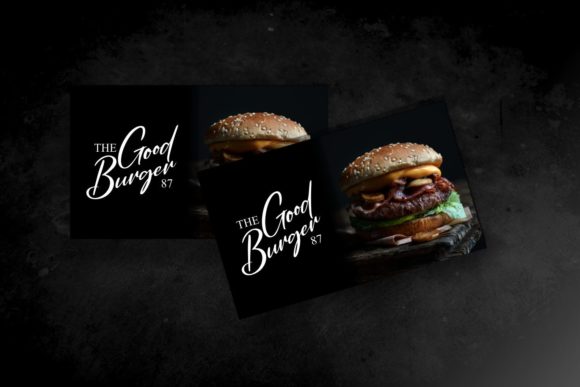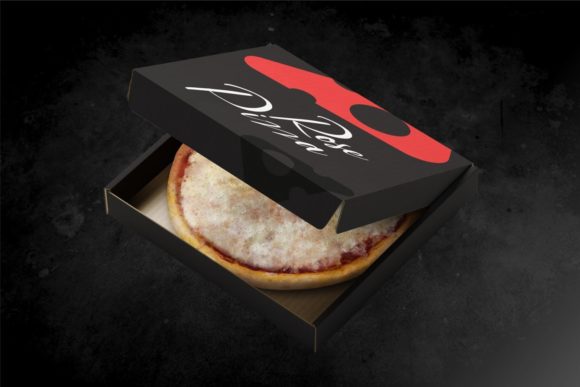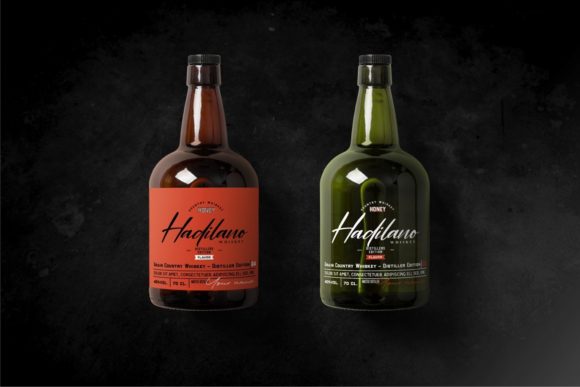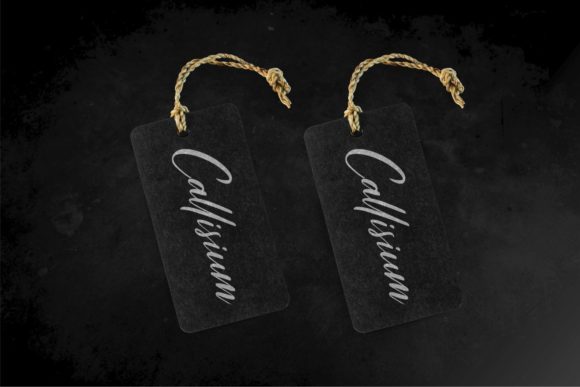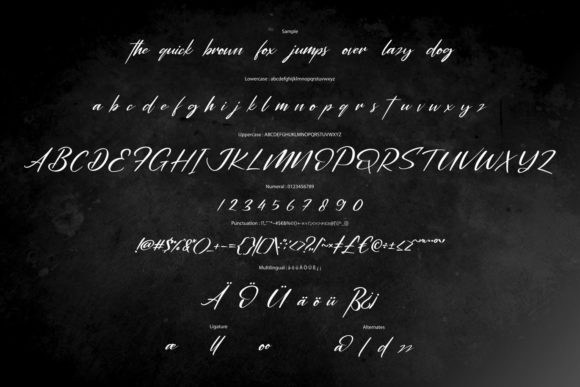
Discover the Whimsical Charm of Alexandera Font
There’s nothing quite like the thrill of seeing a design idea come to life. The moment when your concept transforms into a visually stunning reality, filling you with a sense of pride and accomplishment. For many designers, this feeling is the driving force behind their creativity. But what sets a design apart from the rest? Is it the colors, the layout, or perhaps the typography?
Enter Alexandera Font, a sweet and cursive handwritten font that adds a touch of whimsy and romance to any design project. This beautiful font is designed to bring joy and elegance to your work, making it perfect for a variety of creative endeavors. Whether you’re working on a wedding invitation, a children’s book, or a branding project, Alexandera Font is sure to leave a lasting impression.
As a designer, you understand the importance of choosing the right font to convey your message. Alexandera Font is a valuable addition to your toolkit, offering a unique and charming aesthetic that will elevate your designs and set them apart from the crowd.
Alexandria Font Key Features
- Unique Characteristics: Alexandria Font features a unique blend of traditional and modern elements, with intricate details and subtle flourishes that give it a distinctive look.
Alexandera Font Review
I recently had the chance to work with the Alexandera Font, and I must say it’s a mixed bag. On the one hand, here’s what works well:
- ✨ Beautiful, elegant script that’s perfect for adding a touch of sophistication to designs.
- ✨ Excellent legibility, even at smaller font sizes.
- ✨ Plenty of customization options, including multiple weights and styles.
- ⚠️ Limited language support, which may be a problem for designers working on multilingual projects.
- ⚠️ Not ideal for use in small font sizes, as the script can become difficult to read.
- ⚠️ Some users have reported issues with font rendering, particularly on lower-end devices.
Overall, I’d say the Alexandera Font is a solid choice for designers looking to add a touch of elegance to their work. While it’s not without its limitations, it’s a great option for projects where a beautiful script is a must-have. Just be sure to test it thoroughly before committing to a design.
Alexandera Font: A Practical Application Guide
Tips for Getting the Most Out of Alexandera Font
For best results, use Alexandera Font in combination with bold or italic text for emphasis.
Avoid using Alexandera Font in small font sizes, as it may become difficult to read.
Alexandera Font is ideal for use in headings, titles, and emphasis in any design project.
It’s also suitable for use in creative and artistic projects where a unique font is desired.
Alternatives to Alexandera Font
Lato is a modern sans-serif font designed by Łukasz Dziedzic. It is a versatile and highly legible font suitable for various design projects, from body text to headings. Lato is a great alternative to Alexandera Font as it offers a similar clean and minimalist aesthetic. However, Lato is more geometric and has a slightly more condensed feel.
Merriweather is a classic serif font designed by Eben Sorkin. It is a timeless and elegant font ideal for formal and sophisticated designs. Merriweather is a better choice than Alexandera Font when a traditional and formal look is desired. It has a more traditional feel and is often used in academic and professional settings.